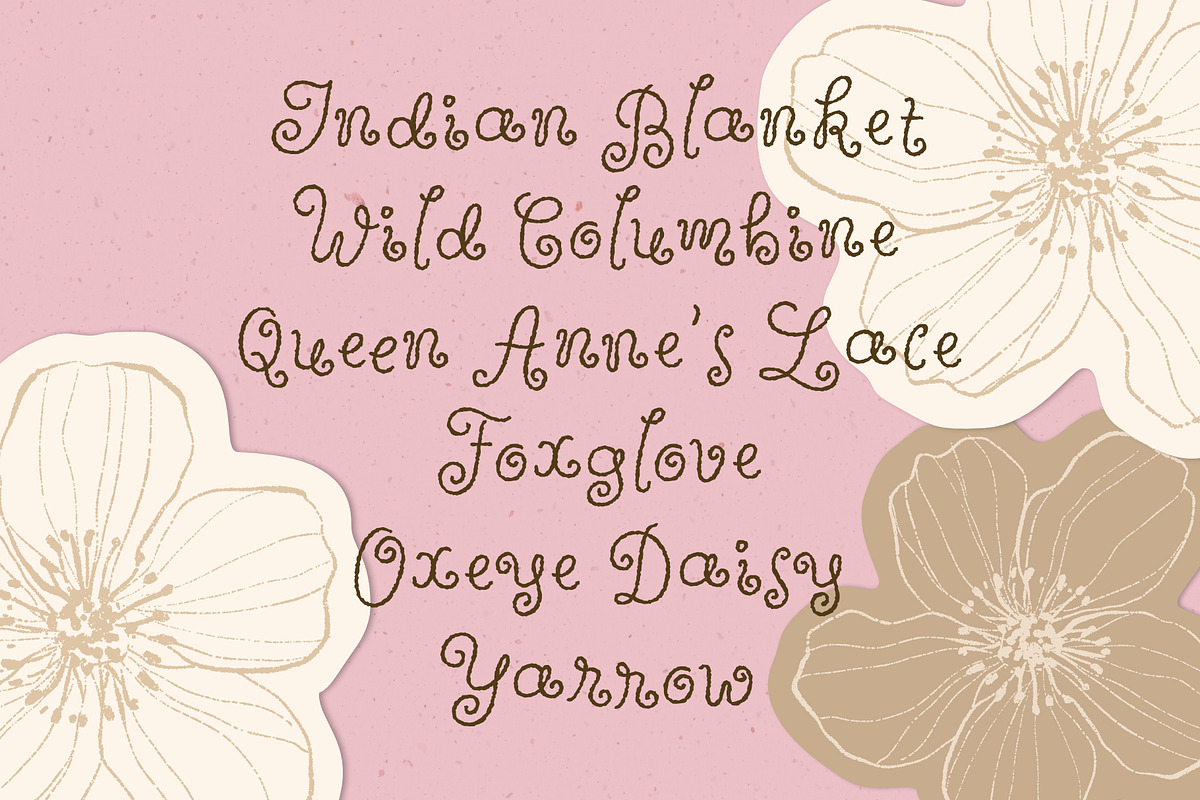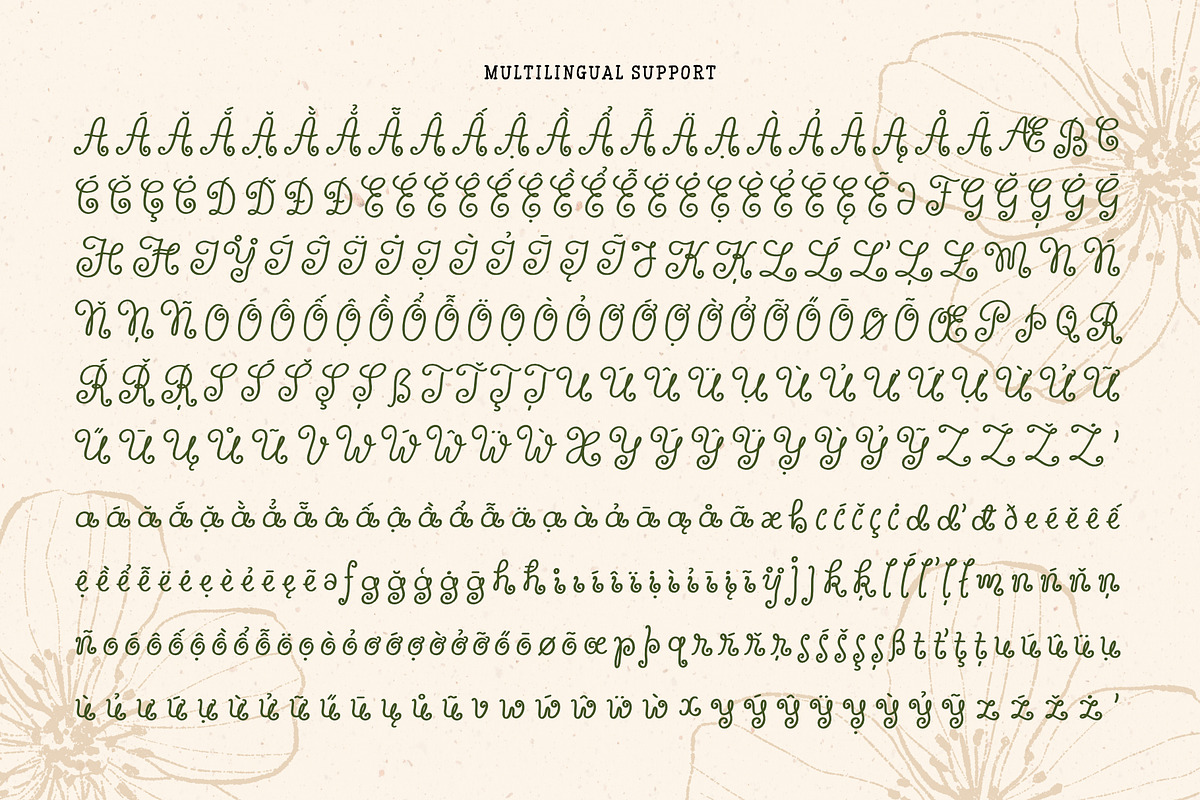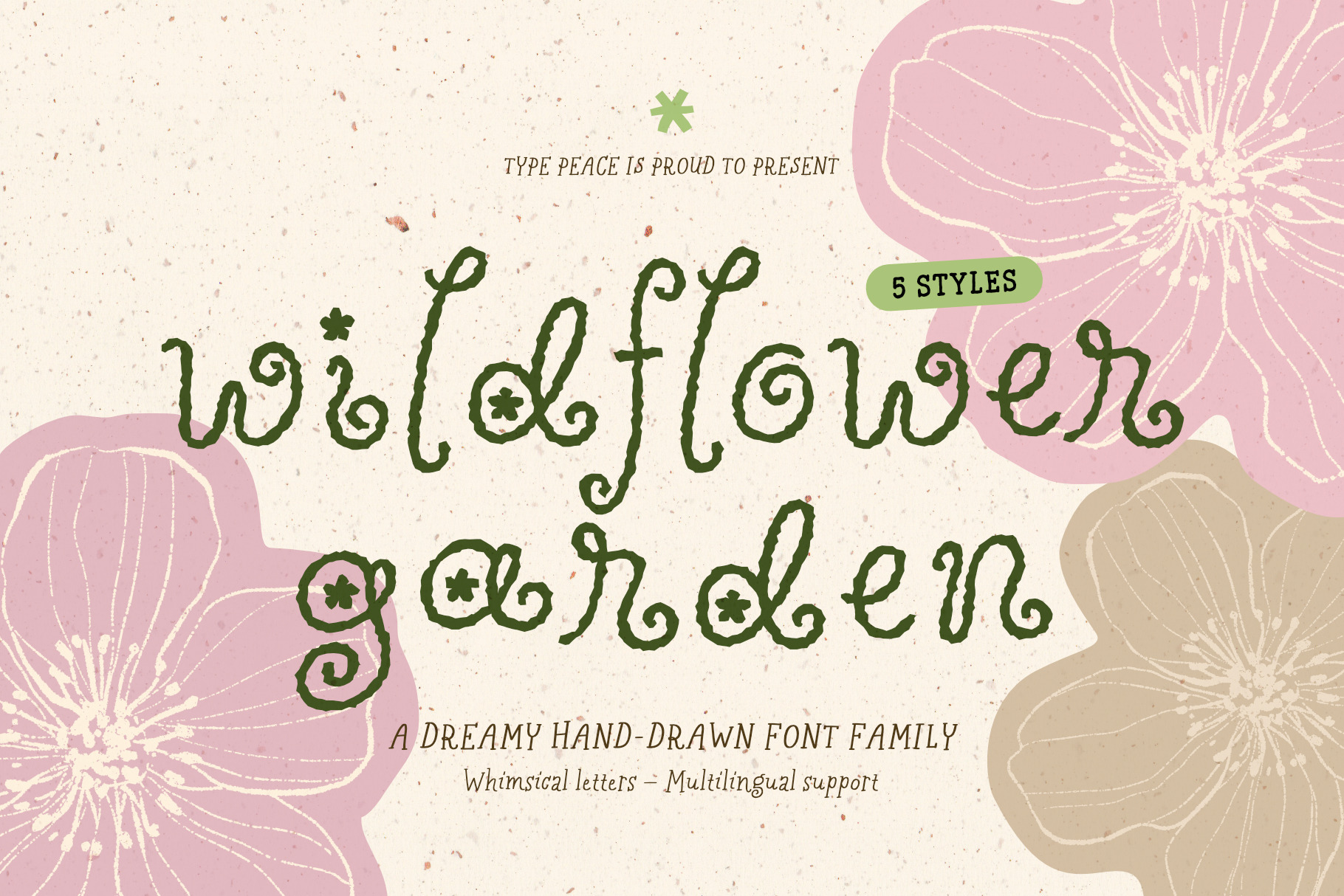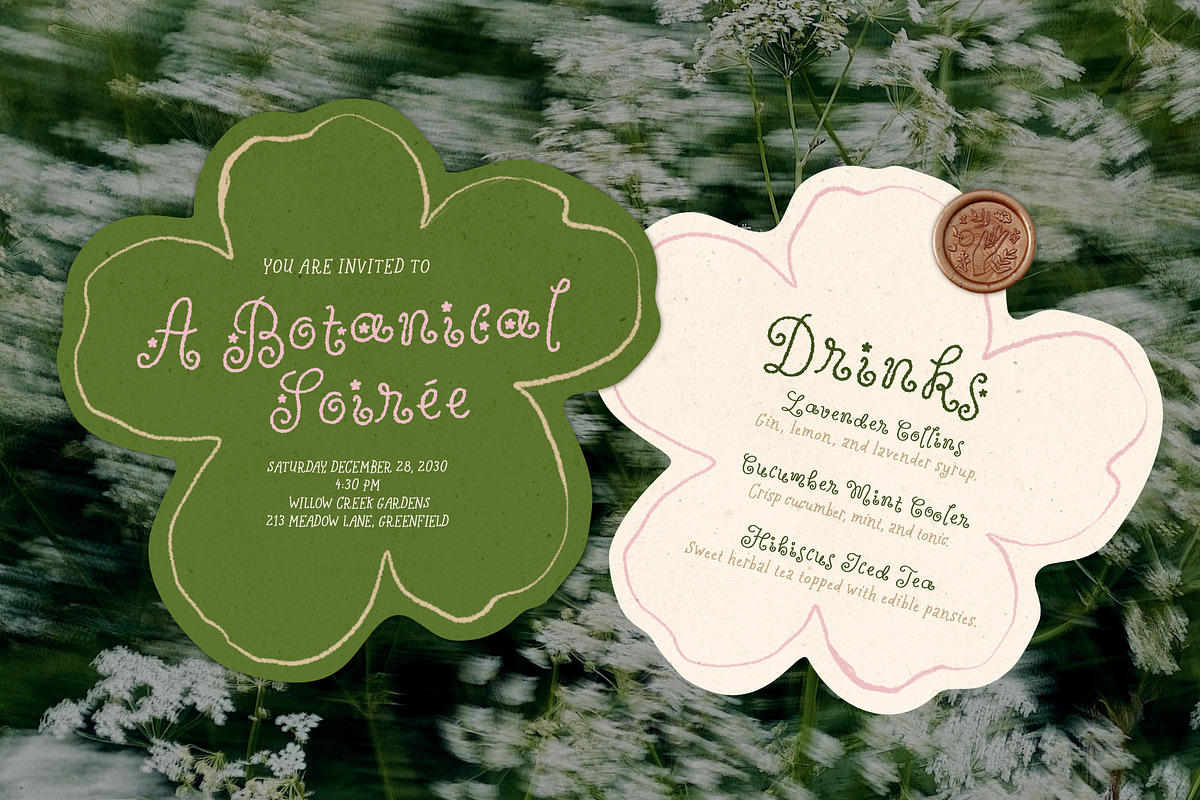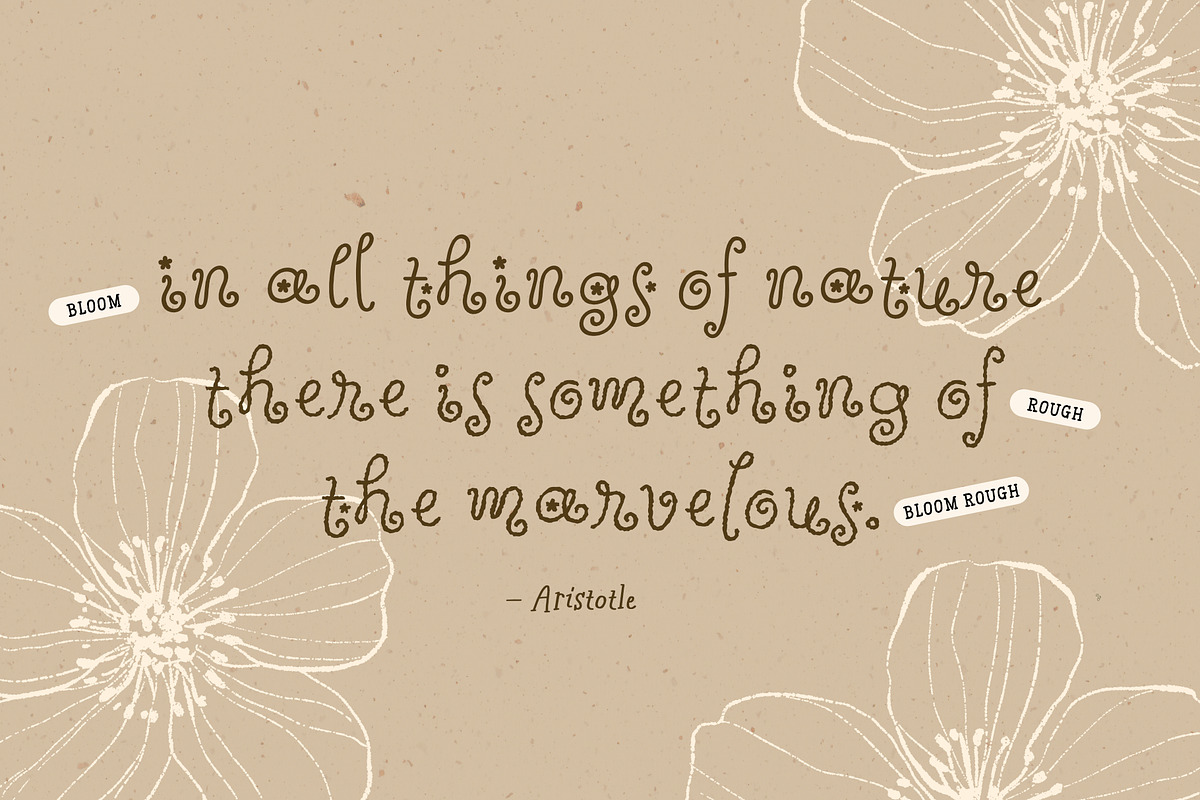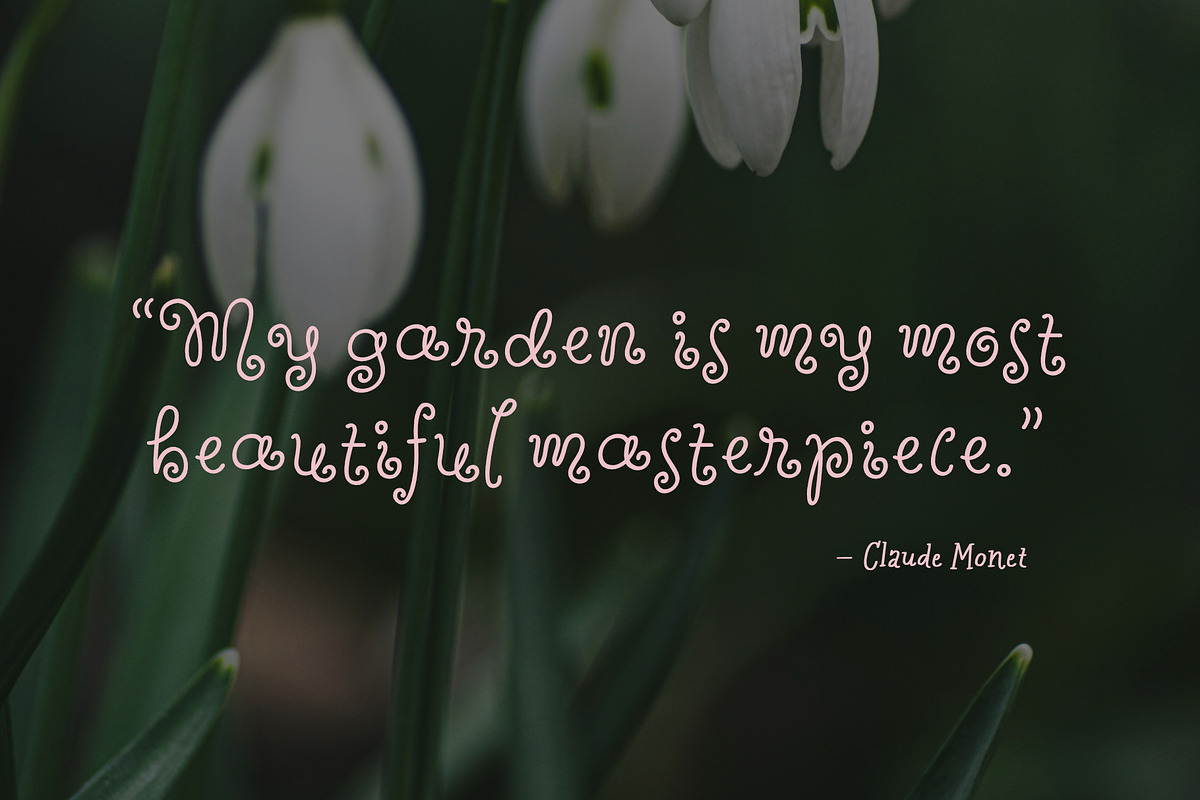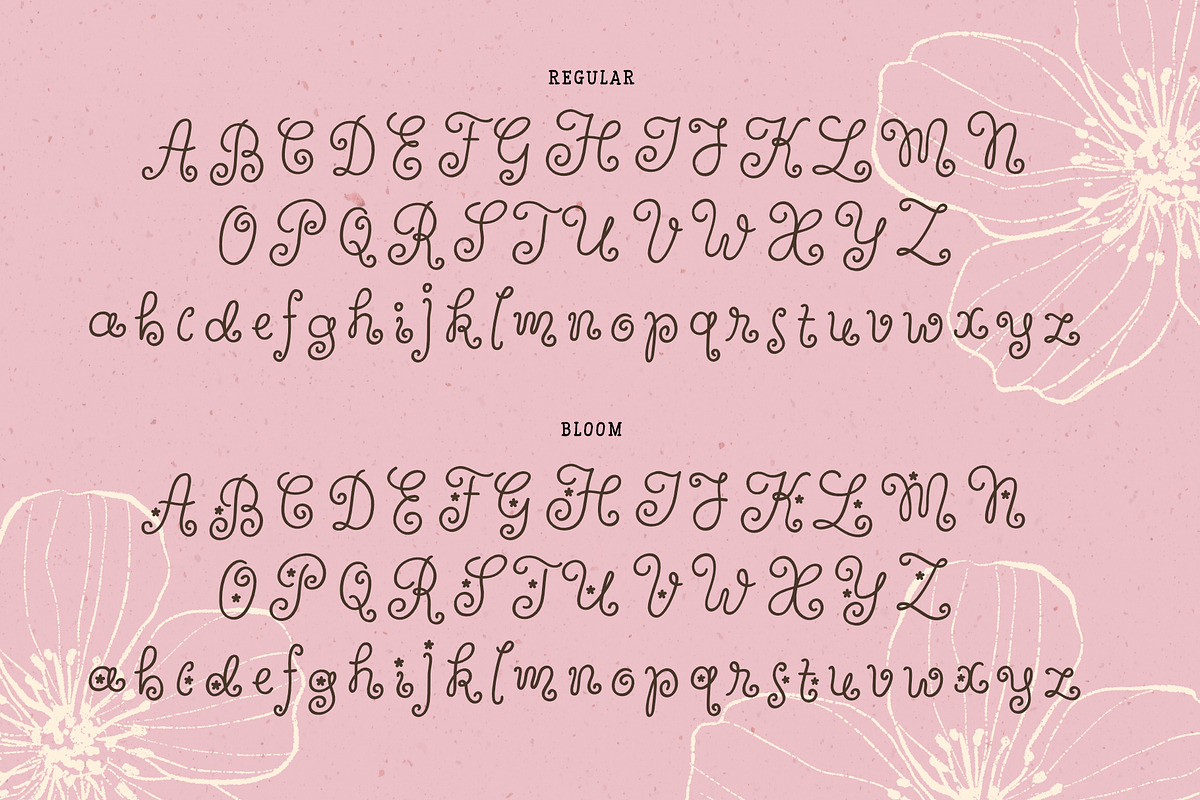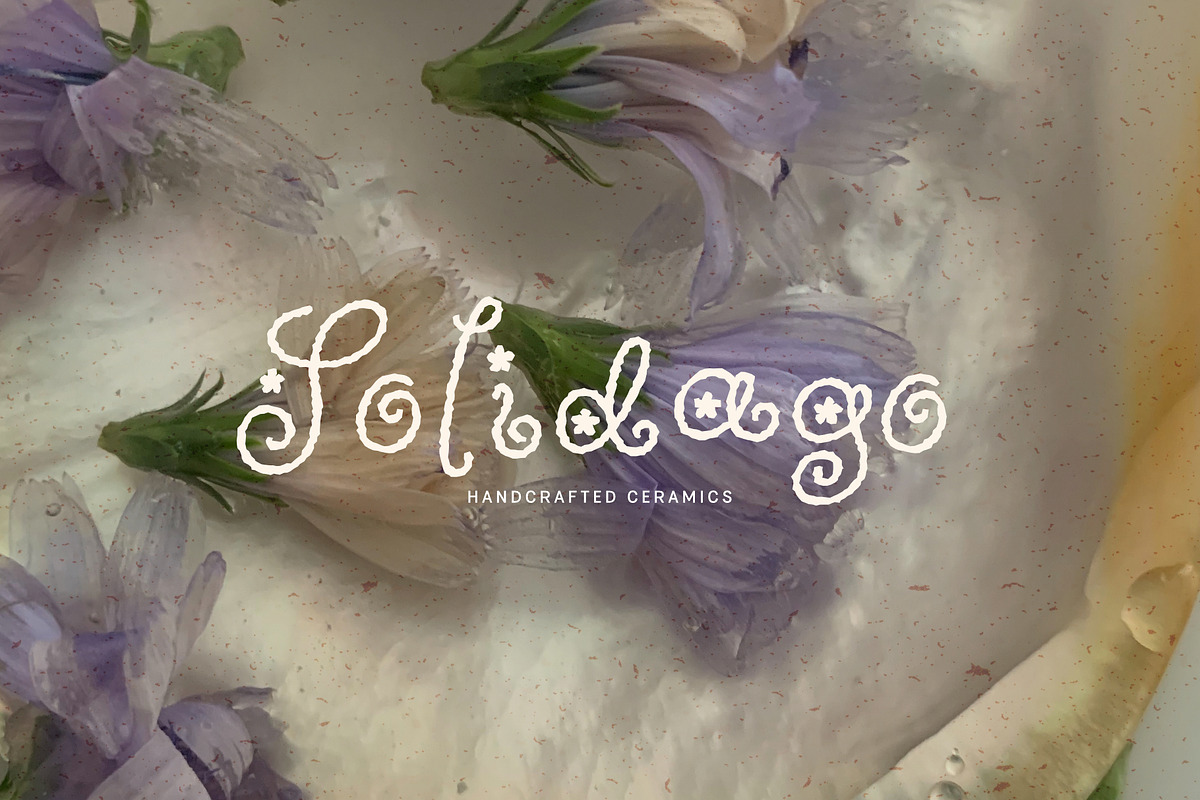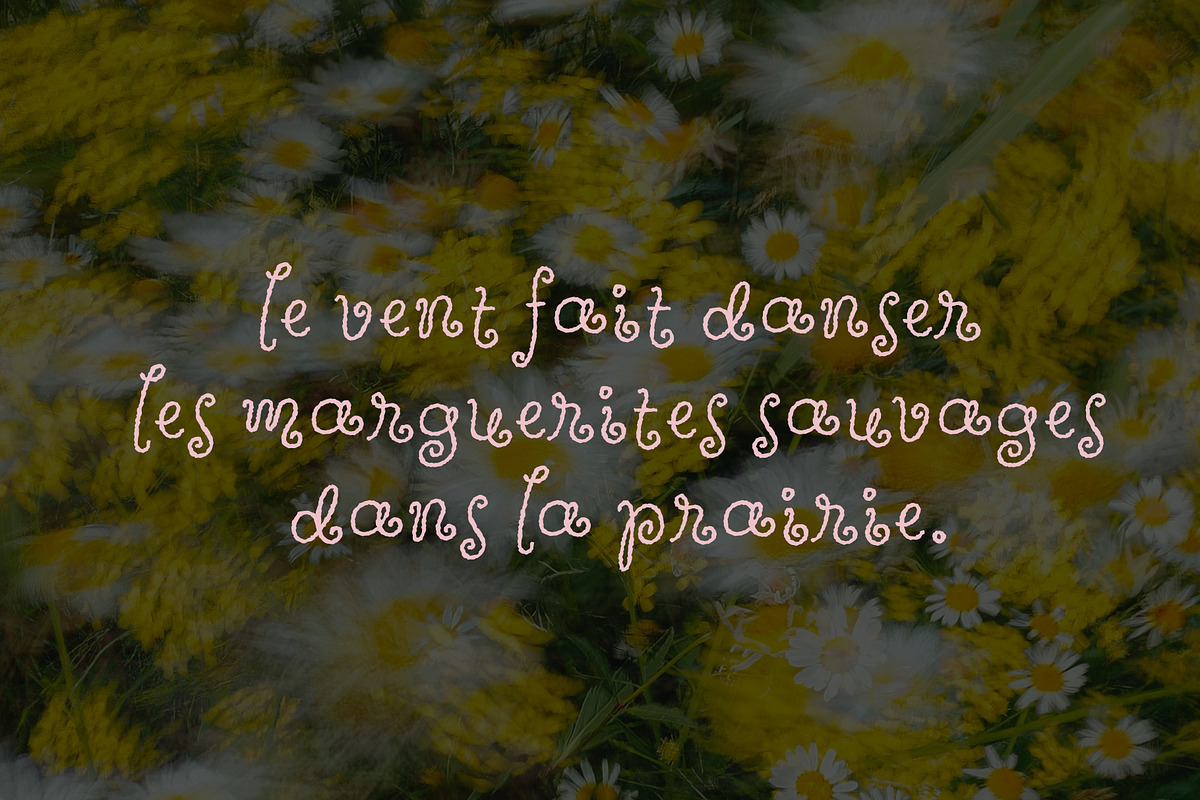
Wildflower Garden | Whimsical Font
Inspired by the liveliness of nature, Wildflower Garden is a whimsical, swirly hand-drawn font family. Featuring five styles, it brings a playful, organic look to any design. Perfect for editorial titles, packaging, invitations, posters, and expressive branding.
The font automatically replaces double lowercase letters with an alternate version to create a more natural hand-drawn look. If this feature isn't applied automatically, enable the OpenType Standard Ligatures option.
Includes 5 styles
Comprehensive uppercase, lowercase, numerals, punctuation marks and symbols
Includes OpenType features: Standard Ligatures
Script: Latin
Supported Languages: English, Western European, Central European, South Eastern European, Vietnamese, South American